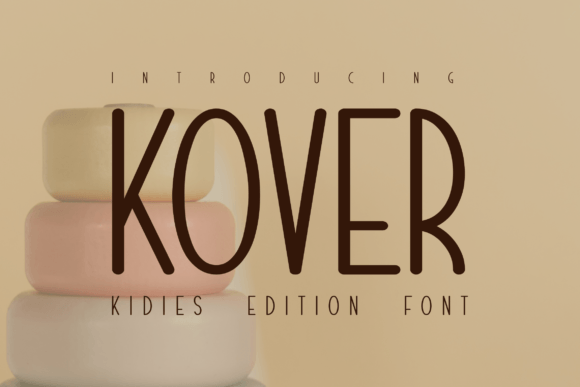
Journey into the realm of captivating fonts, where Kover Font reigns supreme, a sans serif masterpiece crafted by the skilled hands of ponuppo. This extraordinary font family beckons you to unlock a world of enchantment and whimsy, perfectly tailored for baby, toddler, and elementary school products.
With Kover Font, transform the ordinary into the extraordinary, making every touch of a product a profound experience for your little one. Let their imaginations soar as they play, learn, and grow, surrounded by the playful and charming aura of Kover's characters.
Kover Font is not just a collection of letters; it's an invitation to embark on a magical adventure. Its playful curves and endearing simplicity evoke a sense of wonder and joy, capturing the essence of childhood innocence. Each character dances across the page, telling stories of laughter, friendship, and boundless dreams.
Immerse yourself in the boundless versatility of Kover Font, seamlessly adapting to a myriad of creations. Its playful nature lends itself effortlessly to baby shower invitations, adding a touch of whimsical charm to this momentous occasion. Design storybooks that come alive, each page a canvas for the imagination to run wild. Create playful posters for the classroom, transforming learning into an enchanting journey.
Kover Font is a font that speaks to the heart, a font that brings smiles to faces and sparks the imagination. It's a font that makes every product more meaningful, every moment more magical. Let Kover Font be your companion on this extraordinary journey, transforming the mundane into the marvelous.